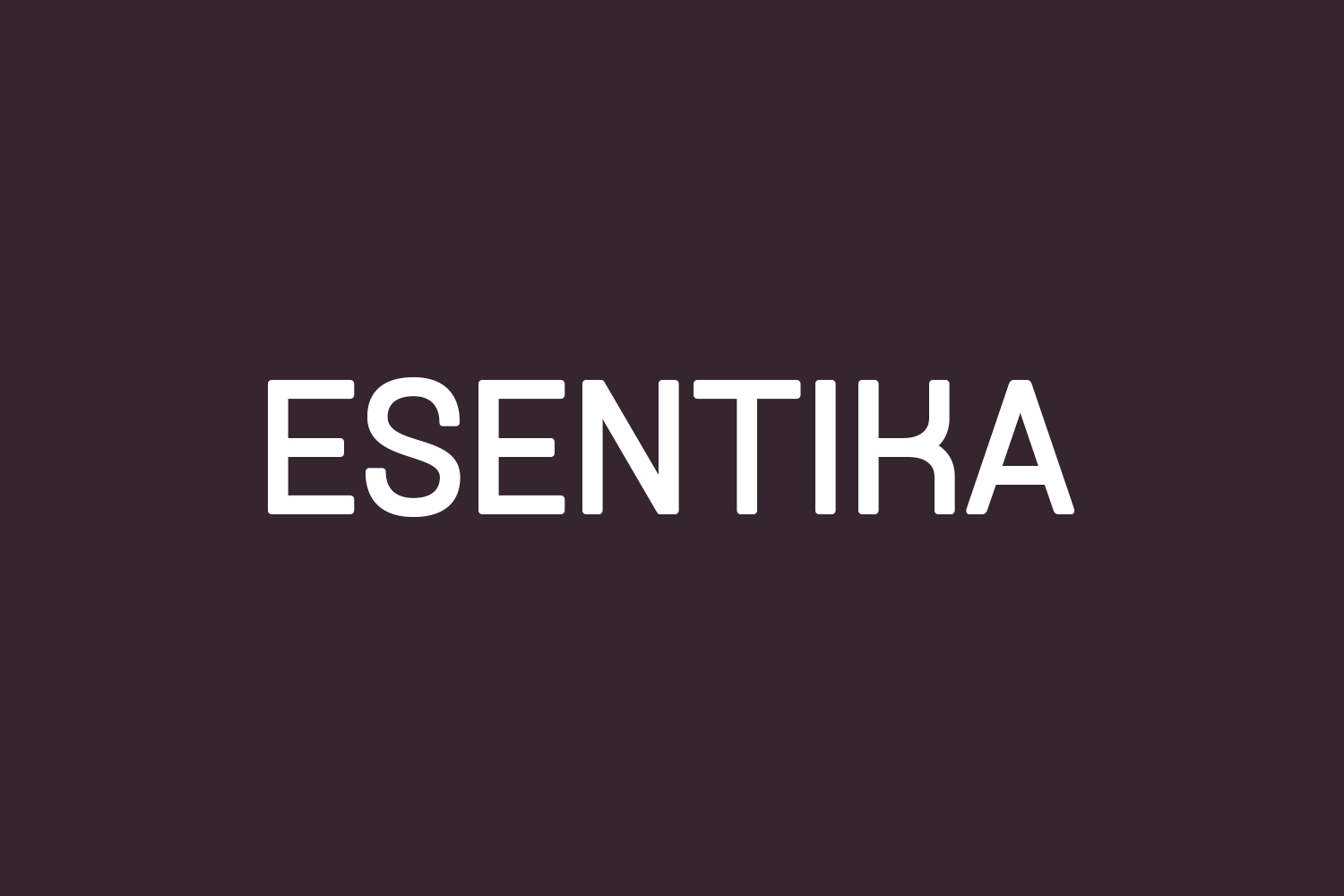
Discover Esentika Free Font, a contemporary and sophisticated typeface crafted for impactful displays. Perfect for headings, logos, branding, magazines, product packaging, and invitations. With its clean lines and sleek curves, Esentika adds a touch of elegance to any project, elevating its visual appeal with finesse. Download the font for free if you need it for personal use or purchase the full version for commercial use.
Designed by BrandSemut